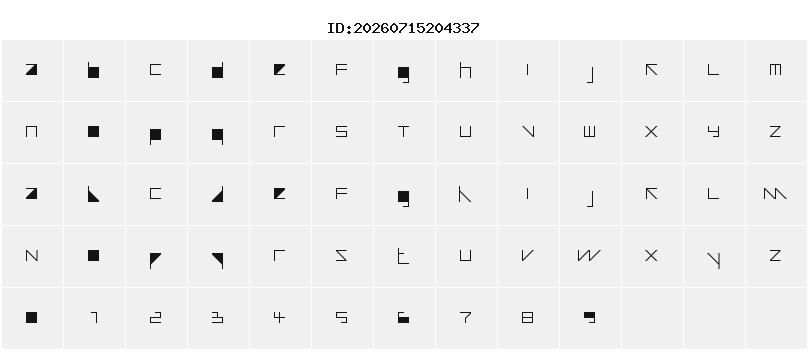
Auricom Filled Preview
• Font Name: Auricom Filled
• Font Style: Filled
• Font ID: Auricom Filled
• Full Font Name: Auricom Filled
• PostScript Name: AuricomFilled
• Character Count: 246
• Designer: Frédéric Rich
• Manufacturer: Frédéric Rich
About Auricom Filled.ttf
Auricom Filled.ttf is a modern, elegant sans-serif font designed for ultimate readability and visual harmony. Perfect for branding, headlines, web design, and print materials.